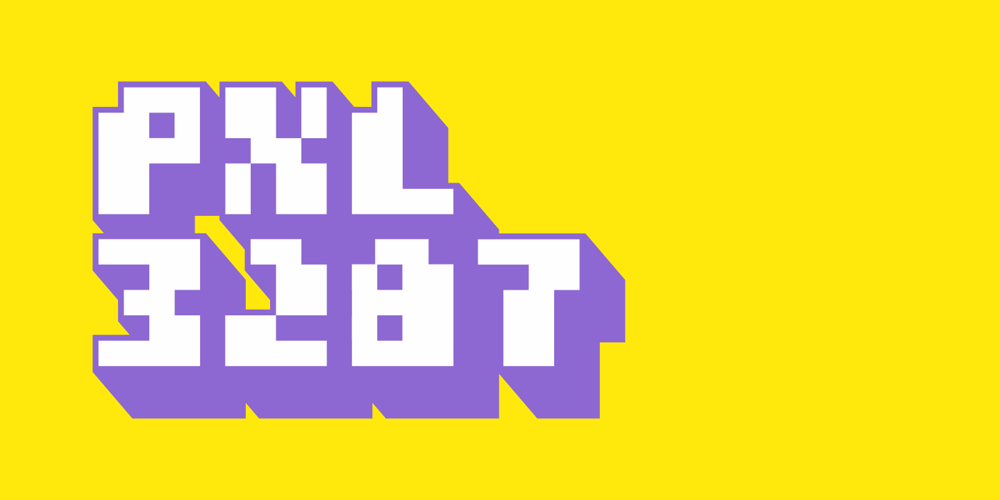
PXL3287
PXL3287 font
PXL3287 Font Family was designed by Radovan Cernak and published by BW90. PXL3287 contains 1 styles and family package options. PXL3287 is pixel art font inspired by ’80s space and sci-fi cartoons and arcade games. It contains more than 220 glyphs (capitals, lower-case letters, numbers, plus many other characters) and supports many european languages.